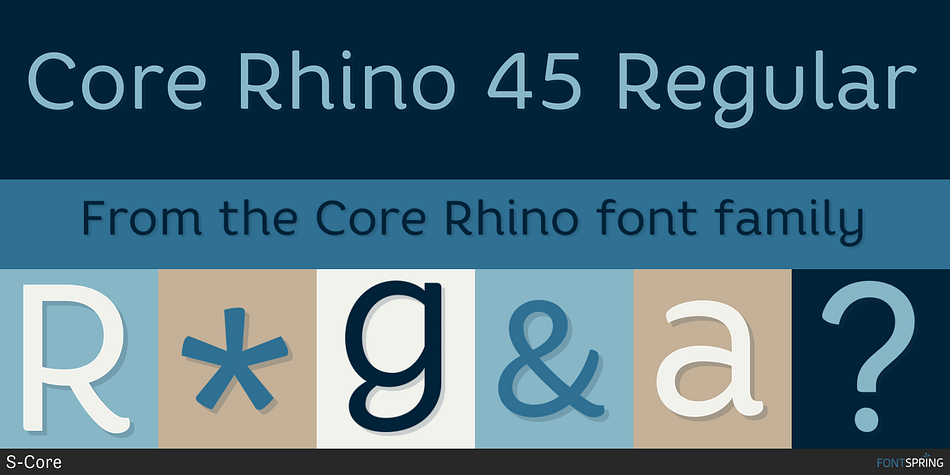
Core Rhino 45 Regular
Core Rhino is a sans serif font family. This typeface has fourteen styles and was published by S-Core.
Core Rhino is a contemporary typefamily designed by S-Core. The fonts have the mood of brushed feeling and come across as soft and gentle. Core Rhino displays warmth through its roundness and curved letterforms. Also it is legible in prints and on screens.
The Core Rhino family consists of 7weights (Thin, Extra Light, Light, Regular, Bold, Heavy, Black) plus matching italics.